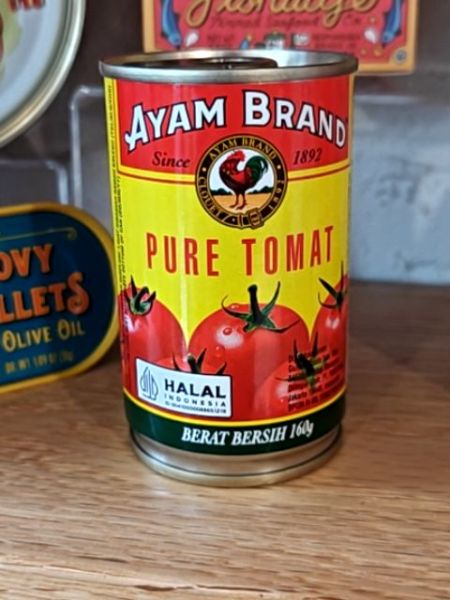
Ayam Brand Pure Tomat
Canned pure tomato used for cooking and adding tomato flavor to various dishes.
1892
Malaysia
The typography on the packaging uses a bold, uppercase serif font for the brand name 'Ayam Brand,' enhancing visibility and brand recognition. 'Pure Tomat' is displayed in a simpler, sans-serif typeface, ensuring clarity and directness for the product description.
The packaging features a vibrant yellow and red color scheme with a striking label design. It prominently displays images of ripe tomatoes along with a distinctive rooster logo, creating an eye-catching aesthetic.
- Ayam Brand is a renowned household name in Asia known for its canned food products.
- The brand was established in 1892, marking over a century of operation.
- Products are widely recognized for their quality and adherence to halal standards.